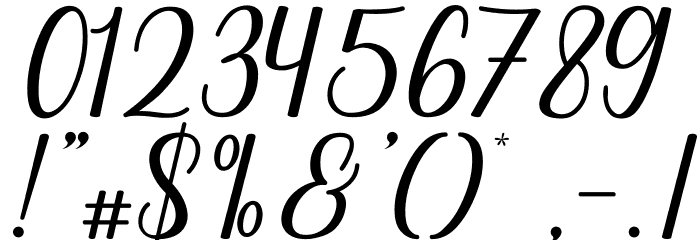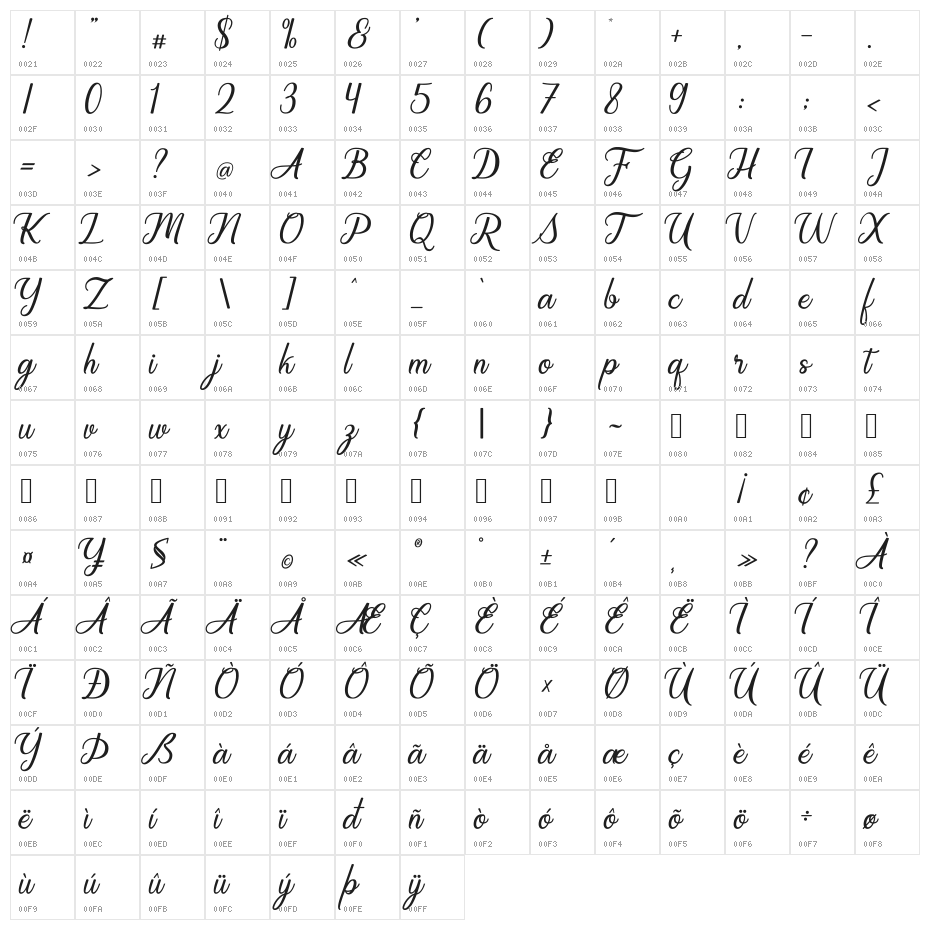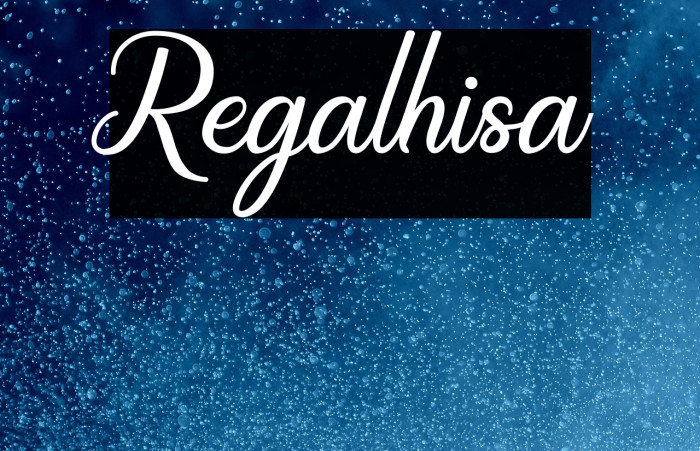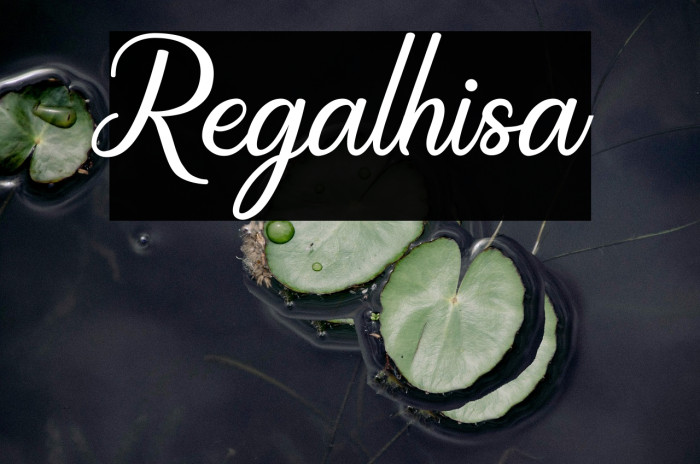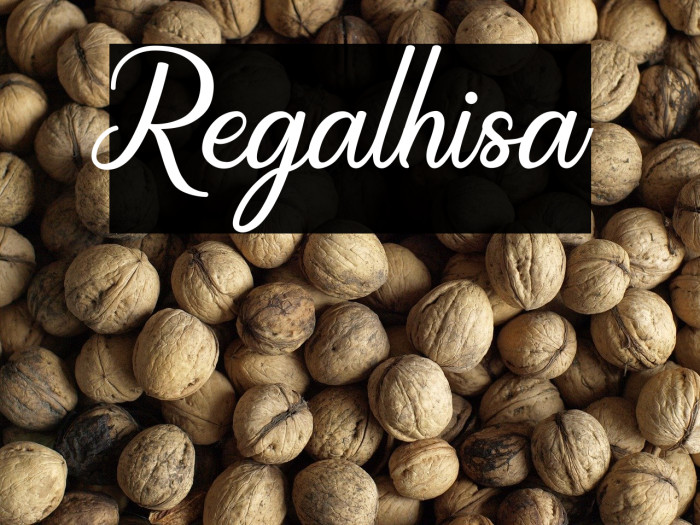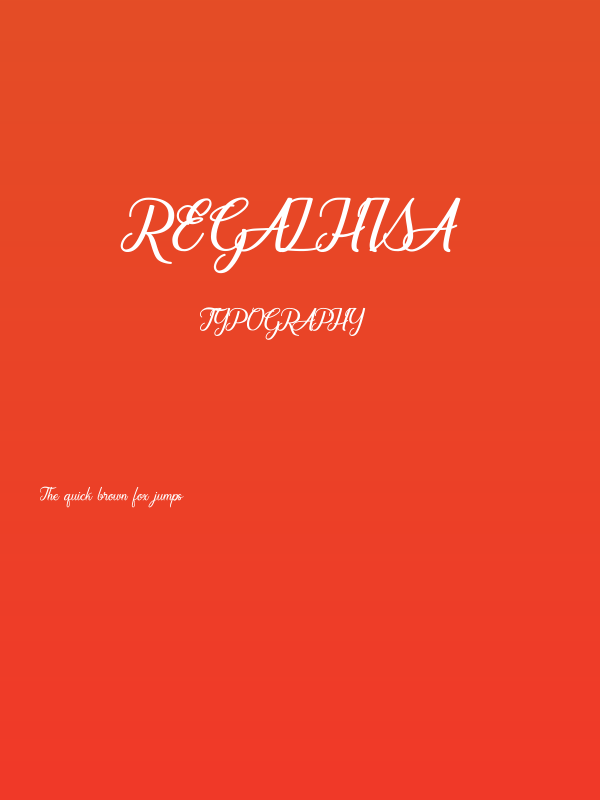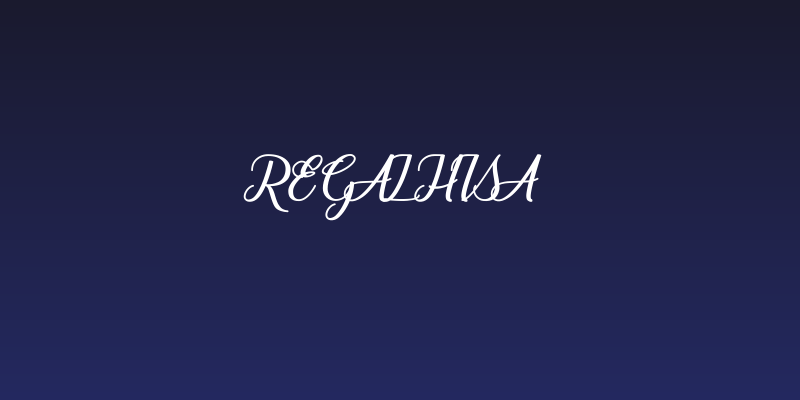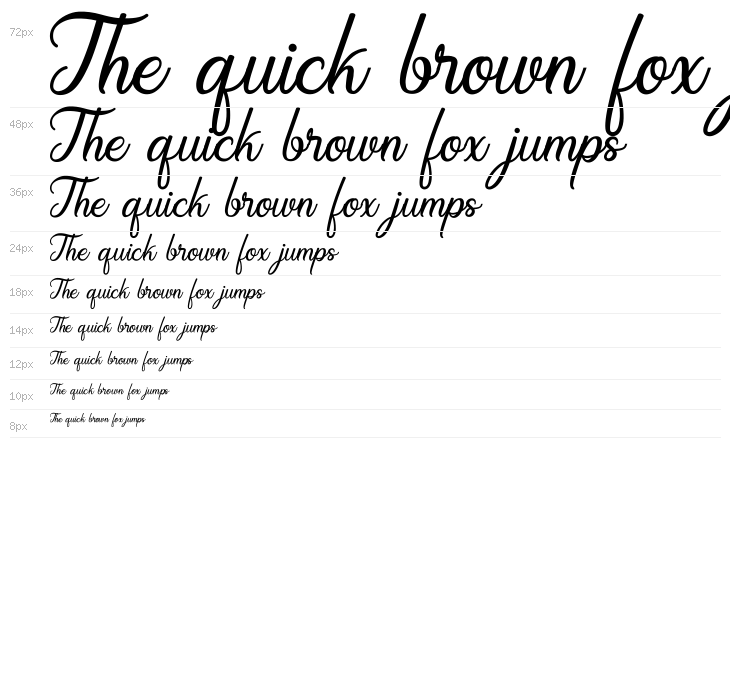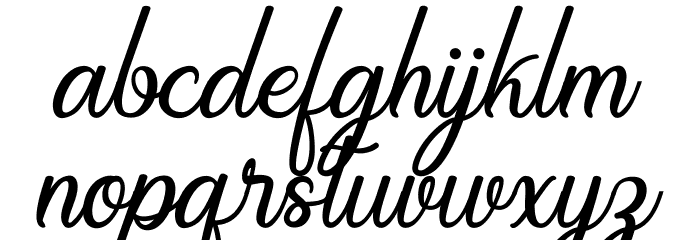
Regalhisa Font
Regalhisa Description
This elegant script font features a flowing, cursive style with graceful curves and loops. The uppercase letters are ornate, with sweeping ascenders and descenders that give a sense of movement and sophistication. The lowercase letters are more restrained but maintain the same fluidity, making the font highly readable while still decorative. The numerals are consistent with the overall style, featuring slight slants and curves that match the letters. Special characters are included, with each symbol crafted to blend seamlessly with the rest of the font. This font exudes a sense of elegance and formality, making it ideal for projects that require a touch of class.
| Overall Style | Elegant, Formal |
| Use Case | Invitations, Branding, Packaging |
| Proposed Projects | Ideal for wedding invitations, elegant branding, formal event programs, and luxury product packaging. |